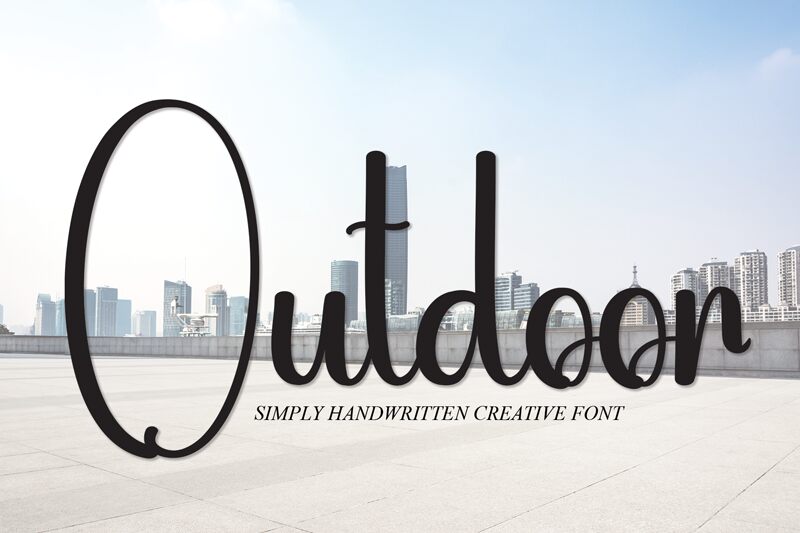
Outdoor
Outdoor, a creation of Scratchones, exudes a charming handwritten appeal that instantly infuses personality into any design. This font's fluid strokes and varying line thickness give it an organic, approachable feel, reminiscent of a personal note or an artistic signature. With its elegantly casual flair, Outdoor lends itself beautifully to creative projects seeking to establish a friendly and inviting atmosphere.
The versatility of Outdoor shines across various applications—from branding materials that aim for an intimate touch to event invitations that call for bespoke elegance. Its distinctive style makes it a fitting choice for businesses in the lifestyle sector or products associated with leisure and nature. Whether gracing the cover of a boutique shop's catalog or enhancing the headers of a travel blog, Outdoor brings a touch of human warmth to digital canvases.